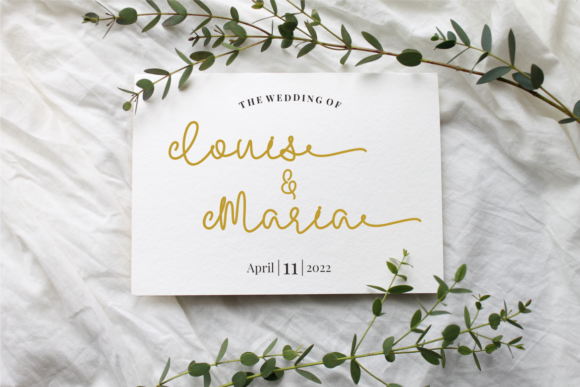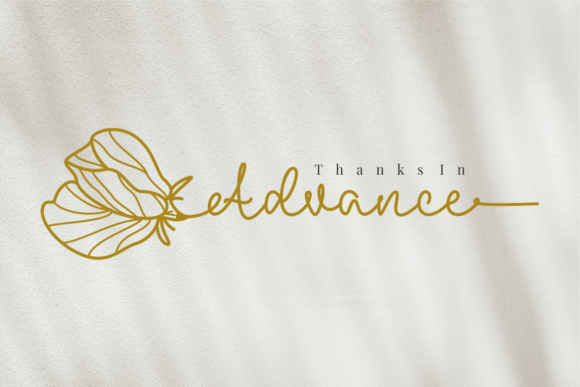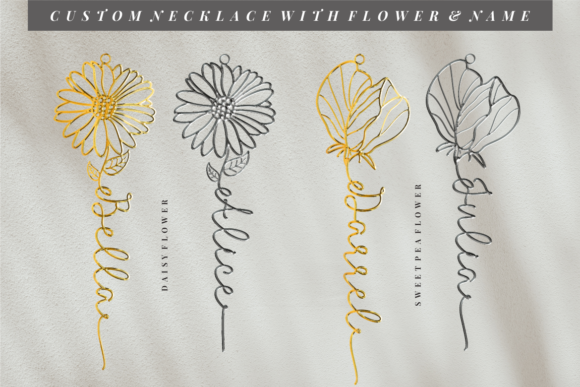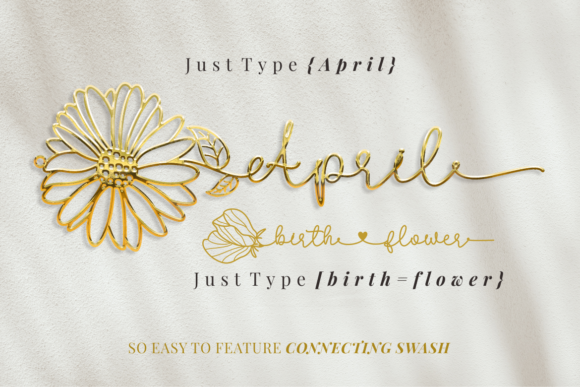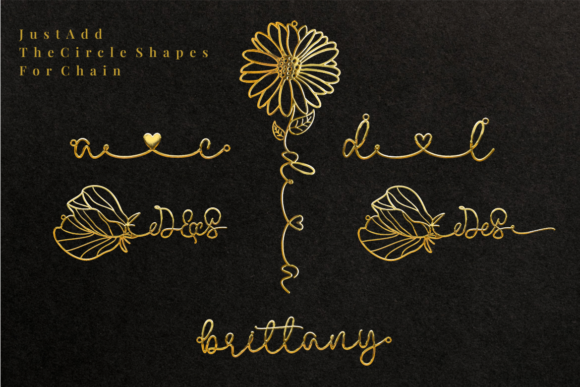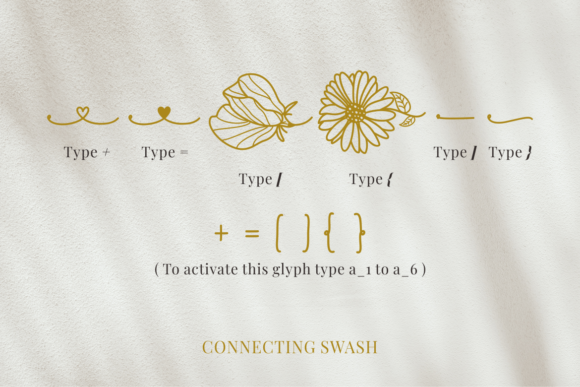
April Birth Flower Font
About April Birth Flower Font
April Birth Flower is a magical script font carefully created with a touch of elegance. Whether you’re looking for fonts for Instagram or calligraphy scripts for DIY projects, this font will turn any creative idea into a true piece of art!